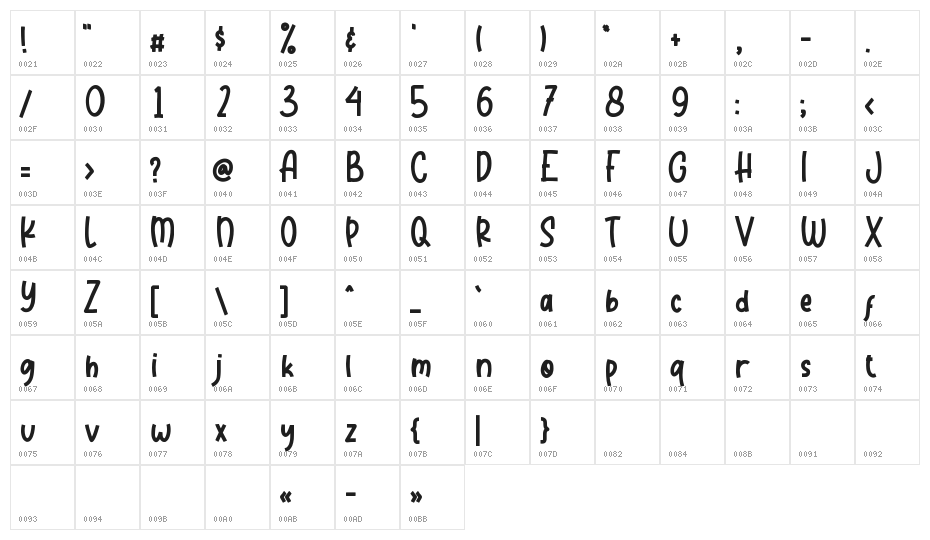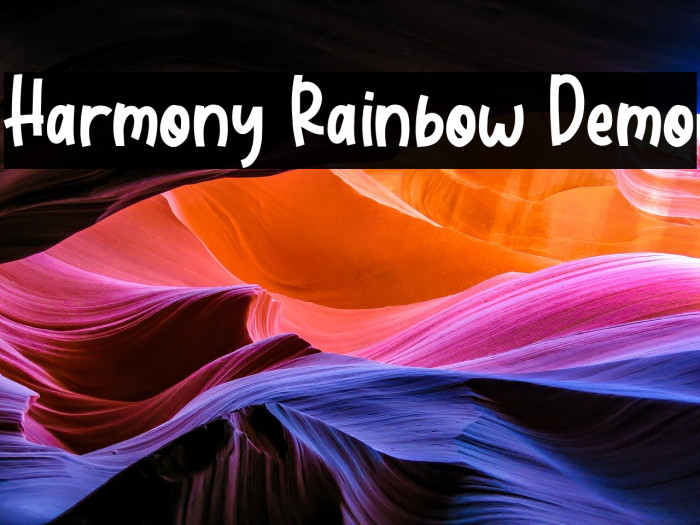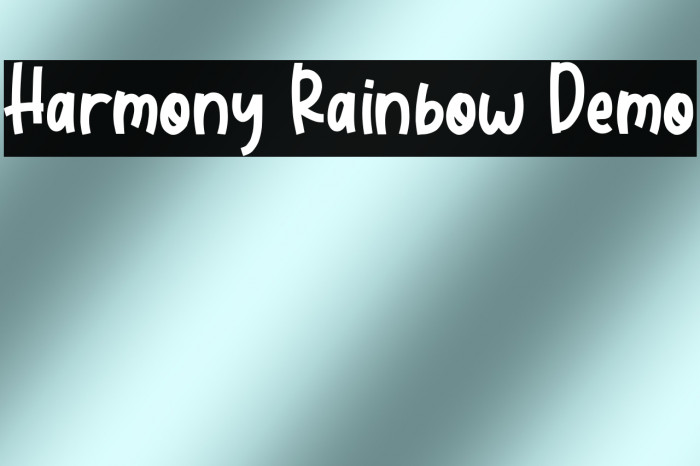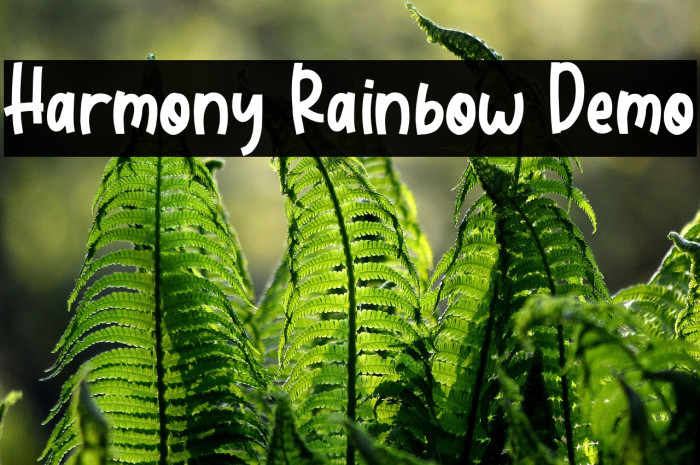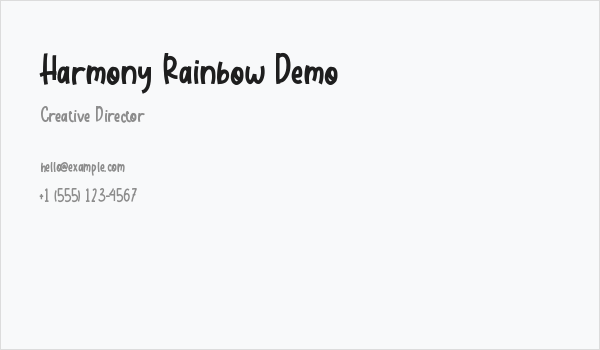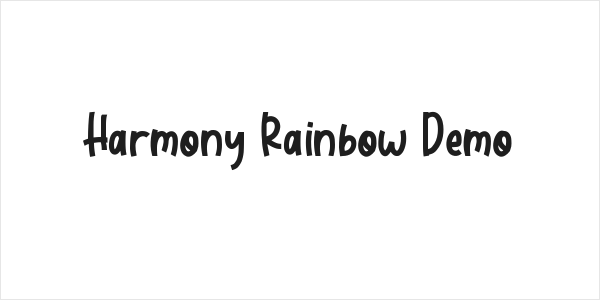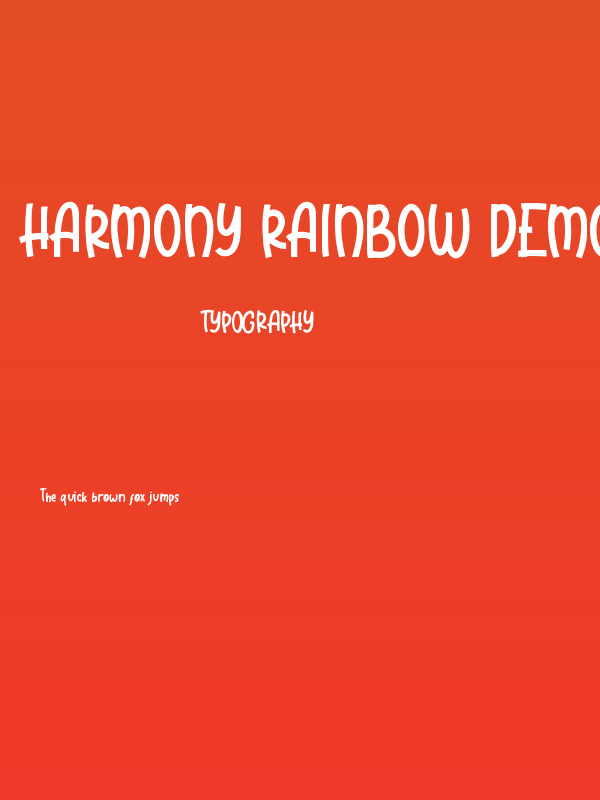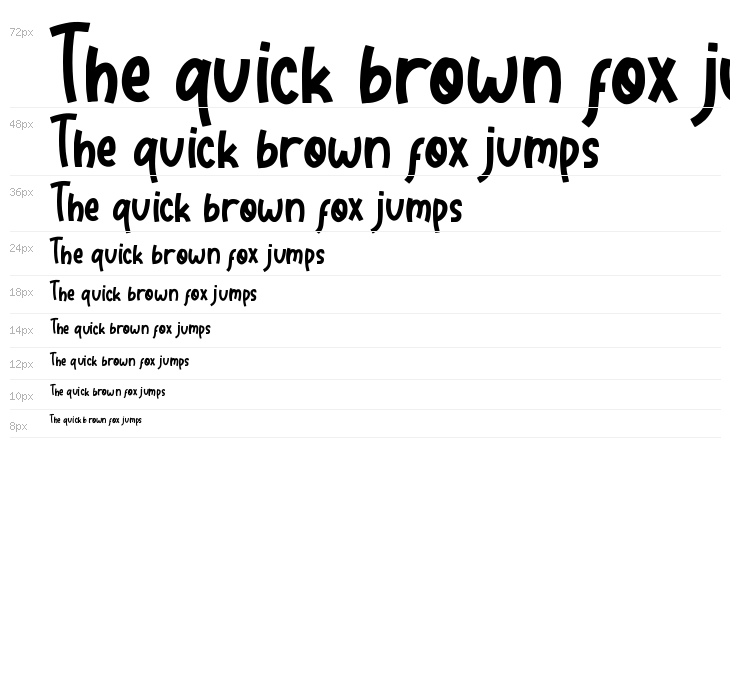
Harmony Rainbow Demo Font
Harmony Rainbow Demo Description
This font features a playful and whimsical design, characterized by its bold and rounded letterforms. The uppercase and lowercase letters exhibit a consistent, hand-drawn style with slightly irregular strokes, giving it a casual and friendly appearance. The numbers and special characters maintain this playful aesthetic, making it suitable for creative and informal projects. The overall look is approachable and fun, with a touch of artistic flair that adds personality to any text.
| Proposed Projects | Ideal for children's books, greeting cards, playful branding, and creative posters. |